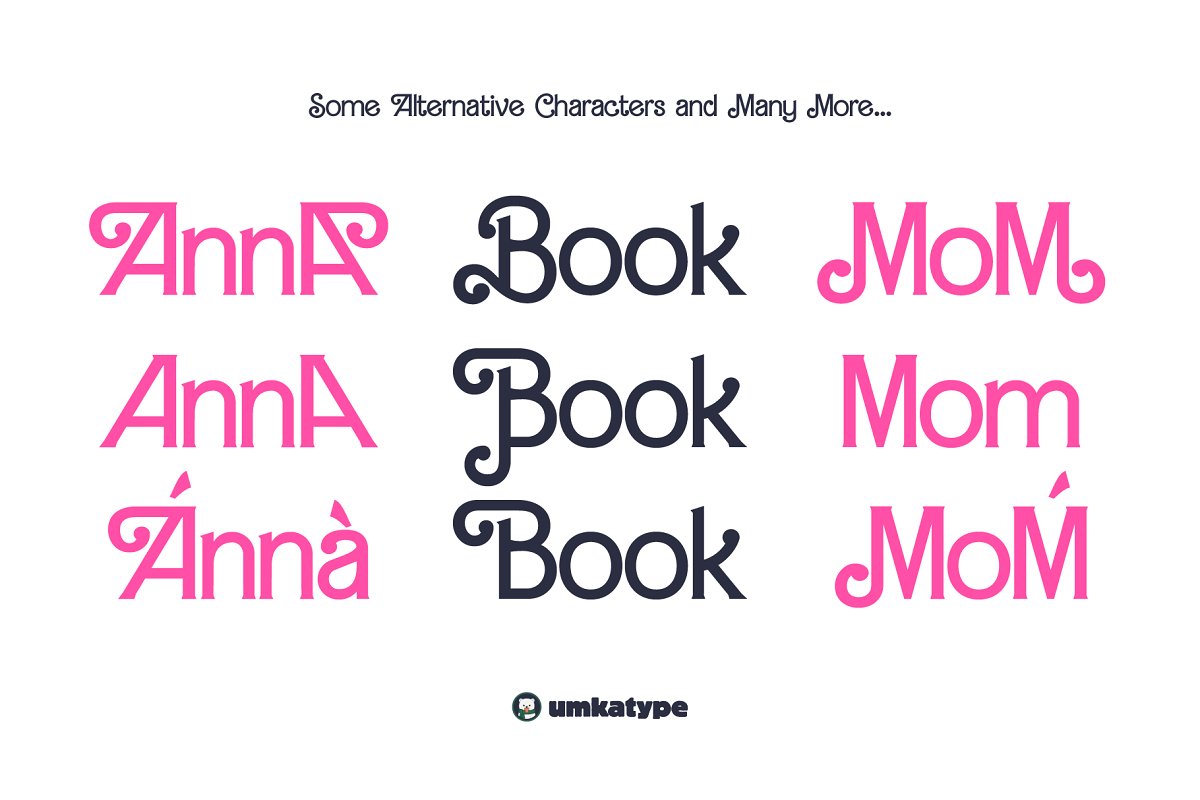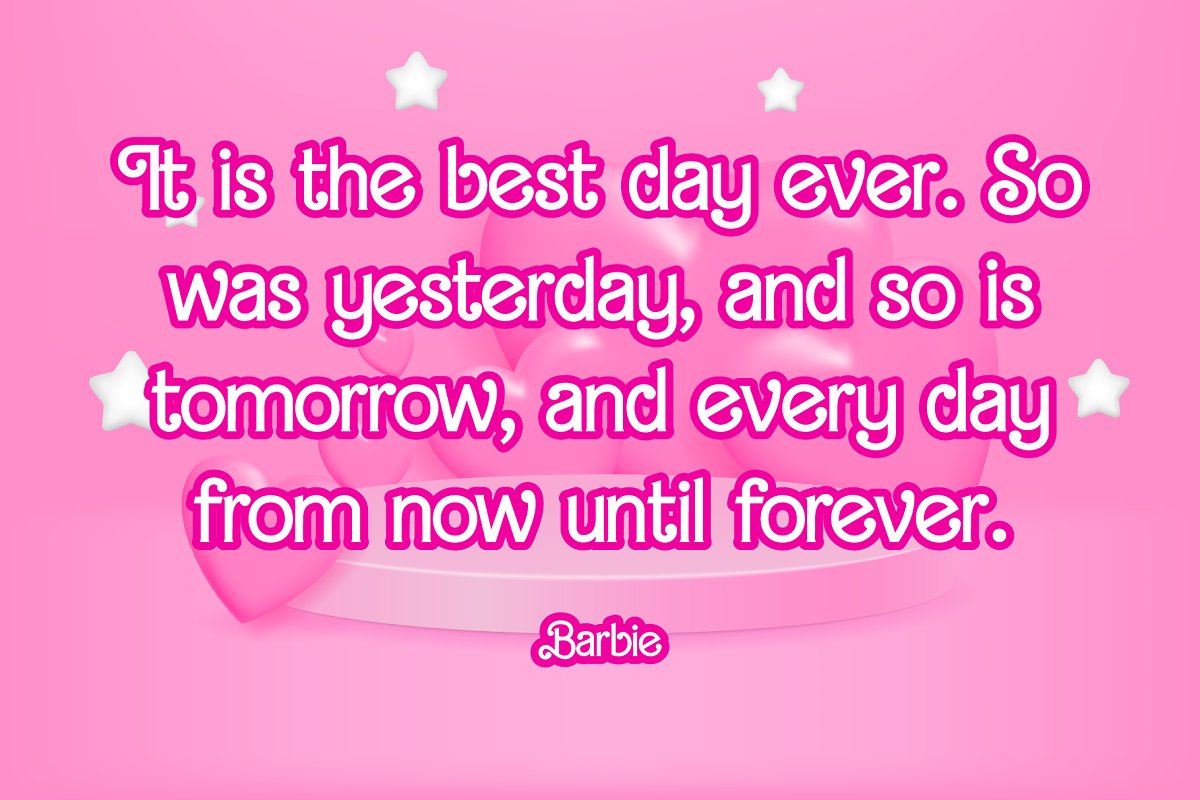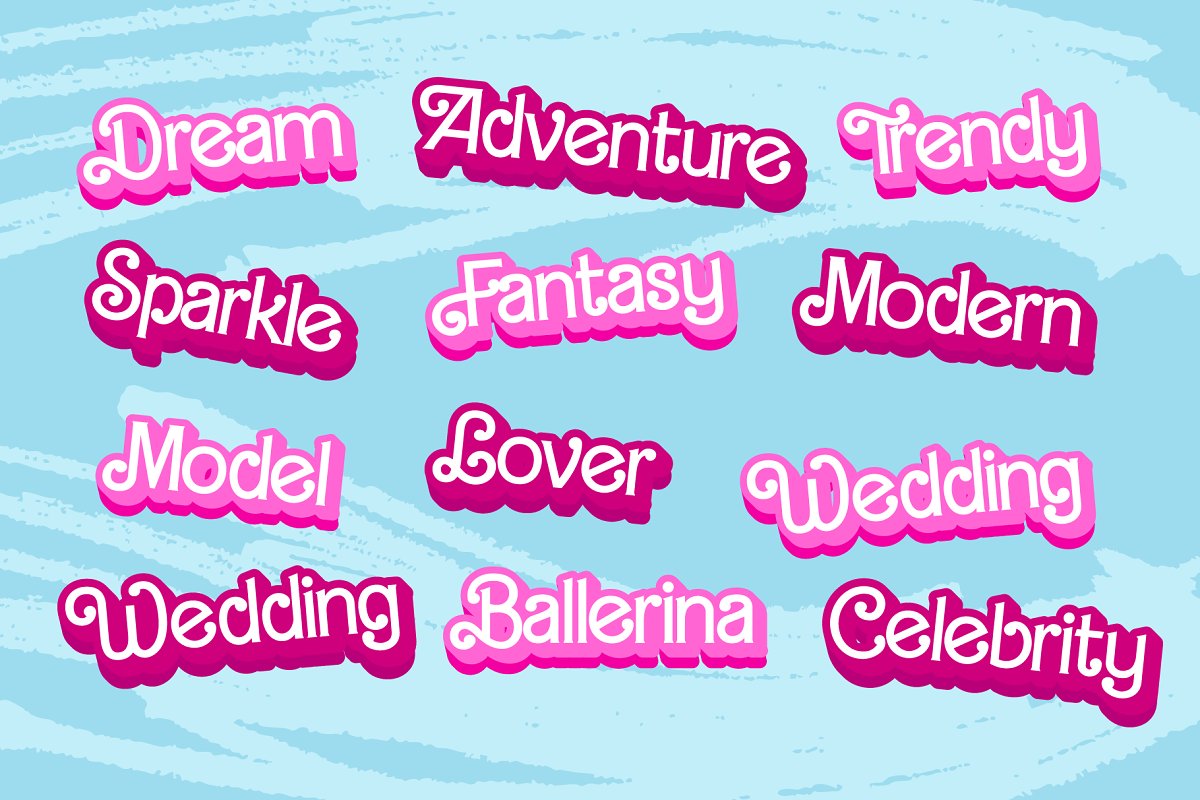
About the Barby Multilingual Font
Barby – A Display Font Barby is a carefully crafted font, Multilingual: It has Extended Latin and Extended Cyrillic letters, It includes webfont formats too: TTF + OTF +WOFF + WOFF2 Barby created for logos, games, web design, branding and social media works, Support for 93 Languages:Belarusian, Russian, Afrikaans, Albanian, Asu, Basque, Bemba, Bena, Breton, Catalan, Chiga, Colognian, Cornish, Croatian, Czech, Danish, Dutch, Embu, English, Esperanto, Estonian, Faroese, Filipino, Finnish, French, Friulian, Galician, German, Gusii, Hungarian, Indonesian, Irish, Italian, Kabuverdianu, Kalenjin, Kamba, Kikuyu, Kinyarwanda, Latvian, Lithuanian, Lower Sorbian, Luo, Luxembourgish, Luyia, Machame, Makhuwa-Meetto, Makonde, Malagasy, Maltese, Manx, Meru, Morisyen, North Ndebele, Norwegian Bokmål, Norwegian Nynorsk, Nyankole, Oromo, Polish, Portuguese, Quechua, Romanian, Romansh, Rombo, Rundi, Rwa, Samburu, Sango, Sangu, Scottish Gaelic, Sena, Serbian, Shambala, Shona, Slovak, Soga, Somali, Spanish, Swahili, Swedish, Swiss German, Taita, Teso, Turkish, Upper Sorbian, Uzbek (Latin), Volapük, Vunjo, Walser, Welsh, Western Frisian, ZuluFree SupportFree UpdatesFree RequestsCustomer SupportPlease let us know if there is a feature you’d like to see